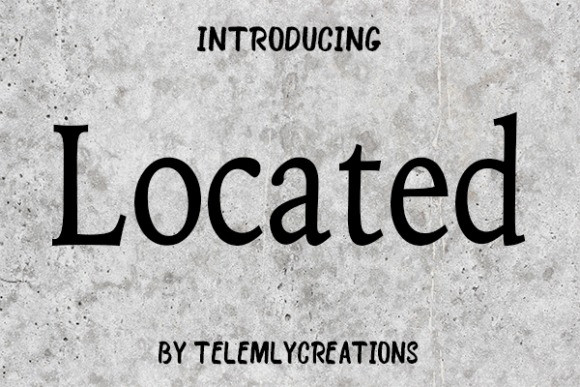
Located Font
Designer: TelemlyCreations
Located Font is a beautiful serif font, your best choice for creating eye-catching logos, branding, and quotes. Every letter has a unique and beautiful touch, which will make your design come alive!